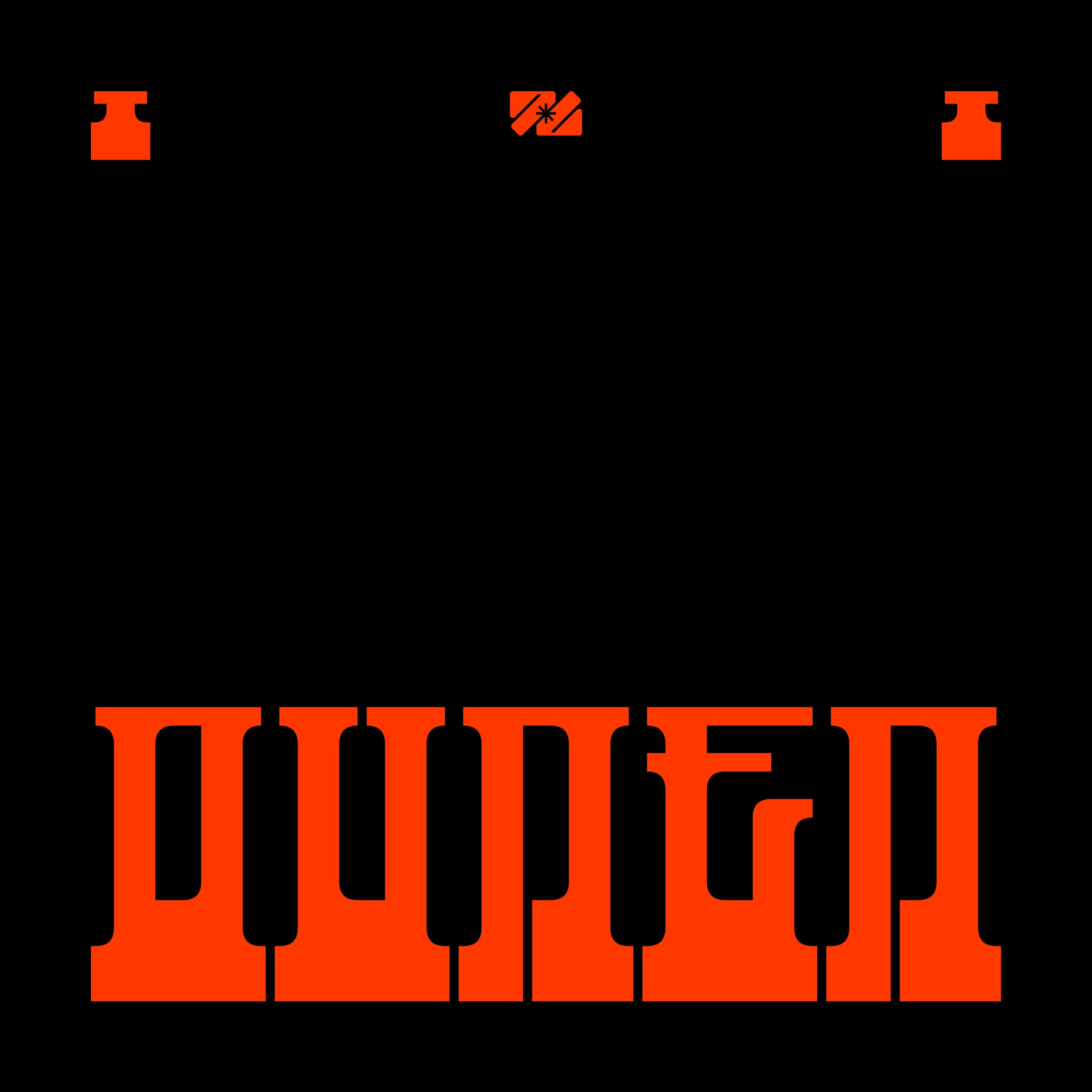
<p>OUNEN Typeface, a font inspired by Japanese graphic design style. Suitable for poster titles, apparel, brands, and others.</p> <p>OUNEN Typeface include :</p> <ul> <li>OTF/ TTF</li> <li>WOFF</li> <li>26 Letter</li> <li>4 Letter Alternates</li> <li>10 Numeral</li> <li>4 Numeral Alternates</li> </ul>